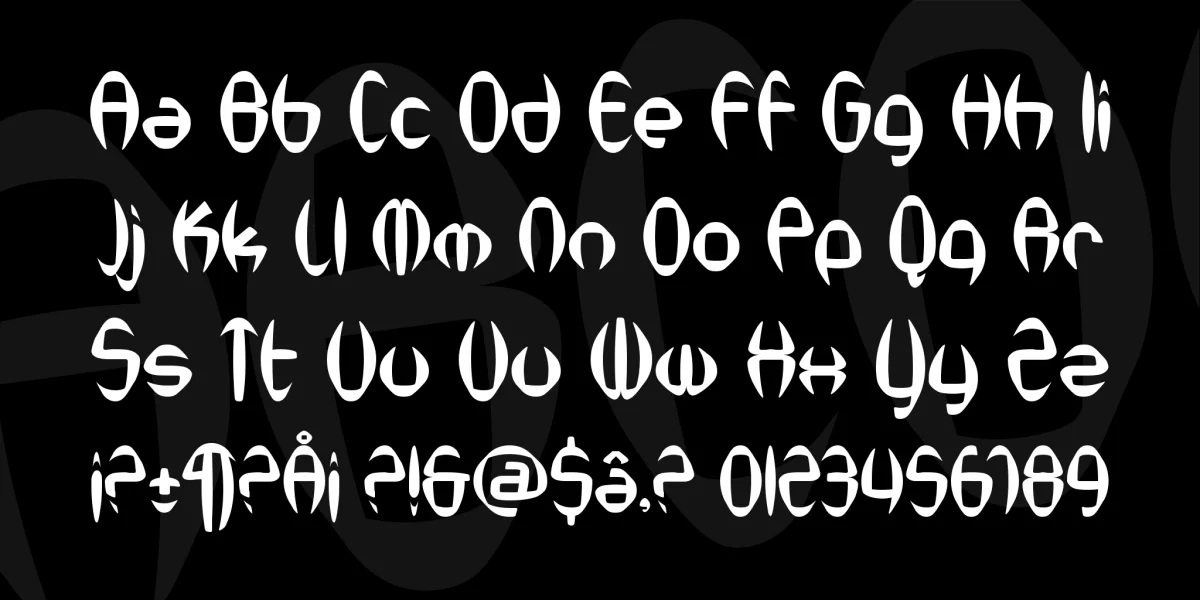
A technoish-popish-stylized typeface, SF Synthonic Pop contains lowercase and uppercase letters, numbers, punctuation, and accented characters. Other fine features include print and preview embedding capabilities and it even comes with the Euro symbol.